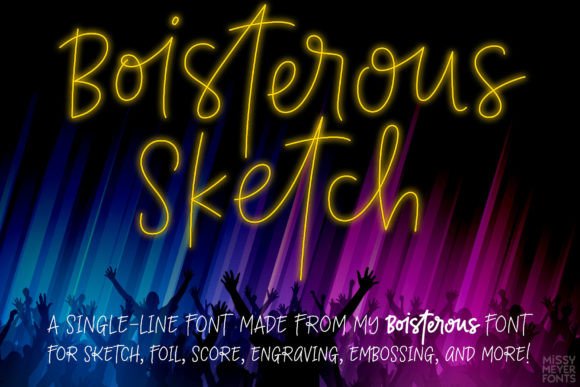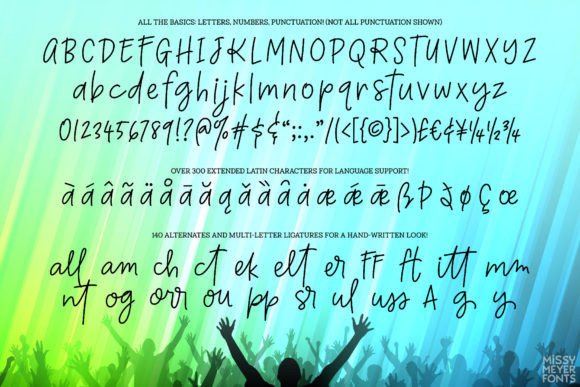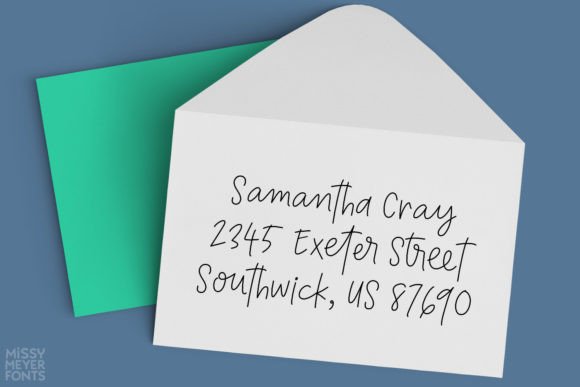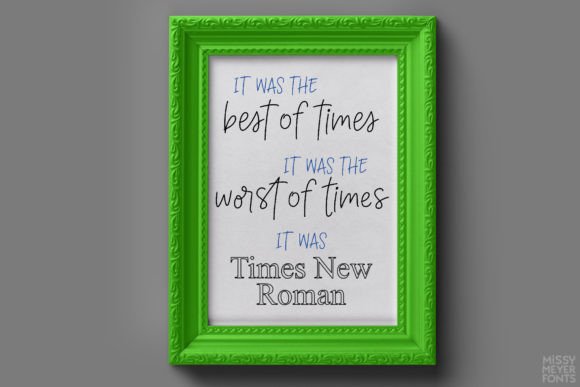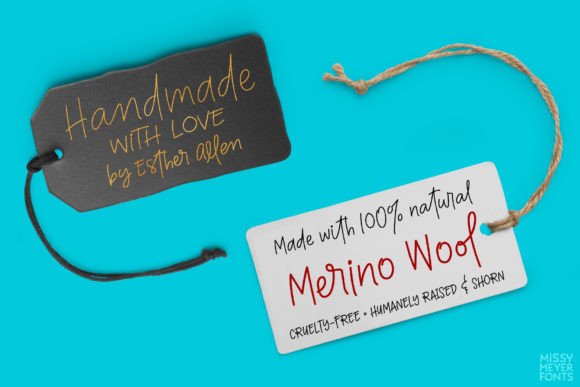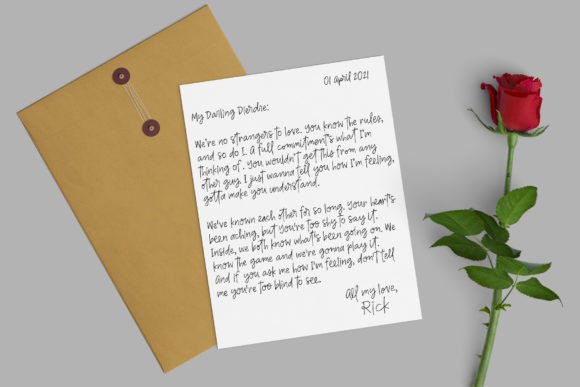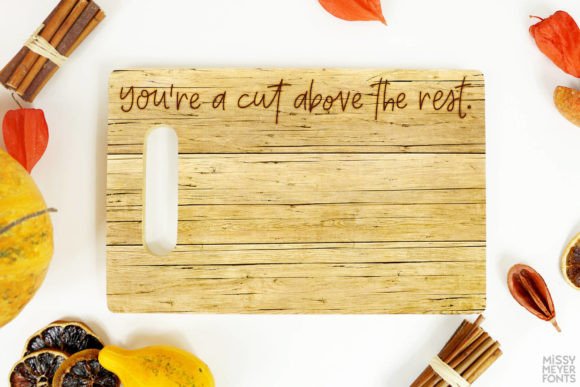
Boisterous Sketch (single Line) Font
“Boisterous Sketch is a single-line iteration of my Boisterous font, designed specifically for sketching, engraving, embossing, scoring, and other applications using a single stylus.
This casual handwriting font features an abundance of ligatures, providing a wide variety. Boisterous Sketch encompasses all characters found in the original Boisterous font, boasting over 600 glyphs, including 300+ extended Latin characters, and 140 alternates and ligatures to achieve an authentic hand-written appearance.
– 140 alternates and ligatures for a nuanced hand-written aesthetic